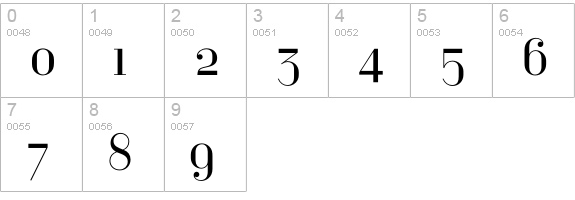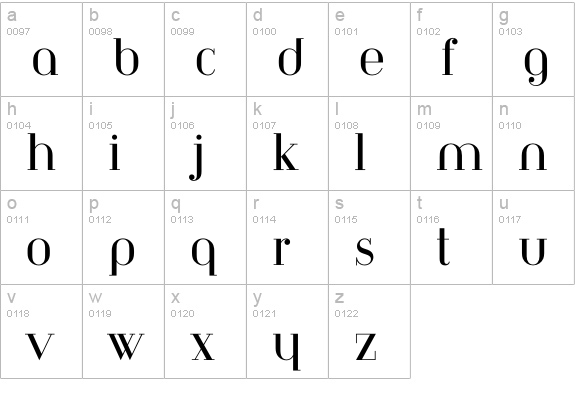
Bayer-TypeArchiType font is a modern and stylish typeface that exudes elegance and sophistication. Its clean lines and sharp angles make it perfect for a wide range of design projects, from branding to editorial design. The font's unique geometric shapes give it a contemporary feel, while its versatility allows it to be used in both headlines and body text. One of the best things about Bayer-TypeArchiType font is that it is completely free to download. You can access this stunning font at FontsMarket.com and start using it in your projects right away. Whether you're working on a website, a poster, a logo, or any other design project, Bayer-TypeArchiType font will add a touch of modernity and style that will make your work stand out. Don't miss out on the opportunity to enhance your designs with this exceptional font - download Bayer-TypeArchiType today and take your projects to the next level!